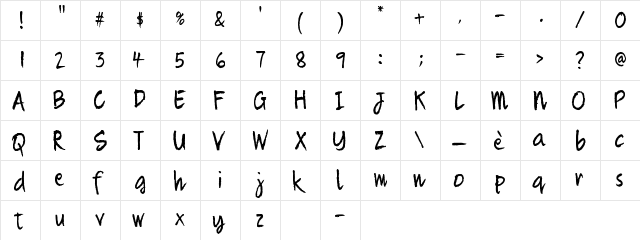
Quikhand Regular Font Preview
Quikhand Regular
Design Context for Quikhand Typeface
Quikhand flows with the natural rhythm of handwritten lettering, making it ideal for designs that call for warmth and personal expression.
Font Pairing: Combine Quikhand with a simple geometric sans for maximum contrast — the tension between flowing curves and clean structure is a classic typographic pairing.
Pro Tip: Use Quikhand for short runs of text — names, titles, or taglines. Extended body copy in script faces tires the eye quickly.